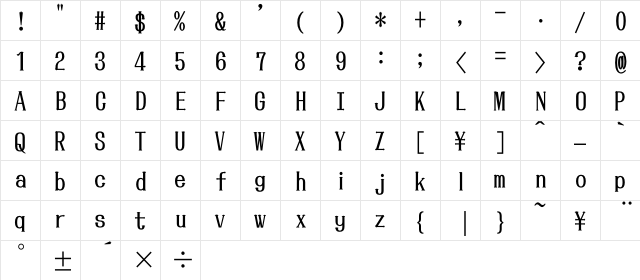
id-Kaiou-LightOT Regular
Design Context for id-Kaiou-LightOT Typeface
id-Kaiou-LightOT is a composed and adaptable typeface that performs quietly and consistently across a wide range of design contexts. Its slender proportions lend an understated elegance to any composition.